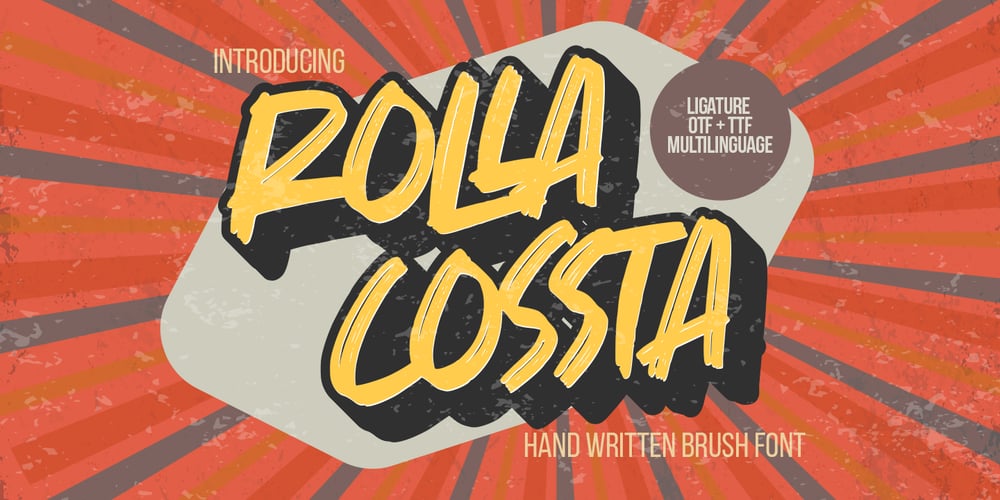
Rolla Cossta Font Family was designed by Abdul Malik Wisnu, Anang Fibriyanto and published by Gassstype. Rolla Cossta contains 1 styles and family package options. Rolla Cossta – Handwritten Brush Font . Introducing of designs look modern, unique and fun. It’s perfect for labels, quotes, posters, DIY projects, branding, packaging, greeting cards, websites, photography overlays, signs, window art, scrapbooking, tags and so much more!our new product that inspired by Street Tagging, graffiti style with a fun theme very good for graffity poster, flyer, childrenbook, cartoon, comic etc